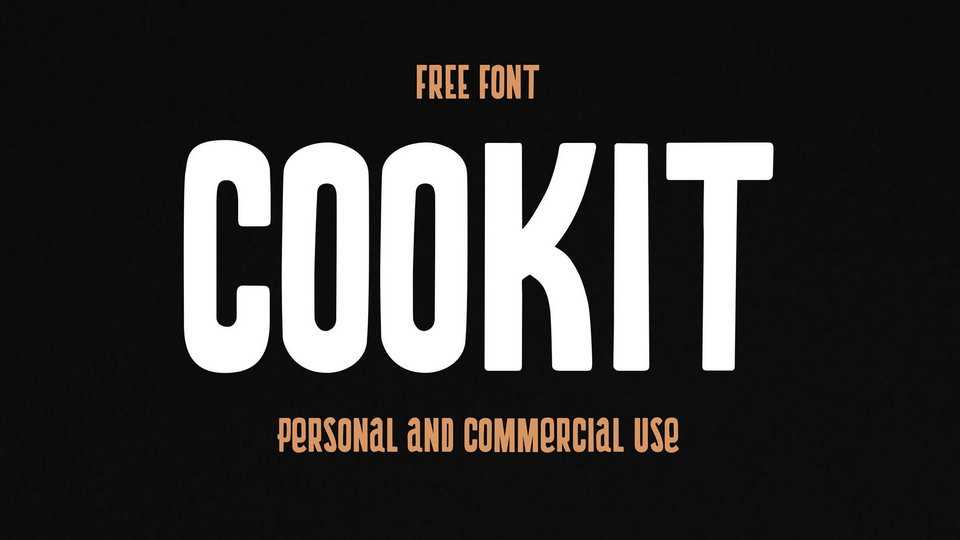
Download Cookit font is a funny handmade all caps display typeface for craft design, headlines, posters, labels, menus, packaging, t-shirts and other creative projects.
Designer: Sérgio Haruo